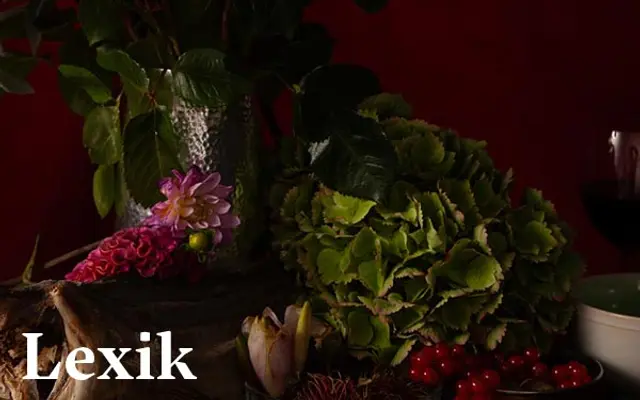
A wedge-serif text typeface with sharply cut, unbracketed terminals and generous round letterforms intended for both body text and headline use.
Lexik's defining characteristic is its wedge-shaped serifs and beaks, each constructed with a minimum of anchor points and no curvature, giving the face a precise, almost incised quality. Despite the sharpness of the terminals, the round letters are drawn generously, balancing austerity with readability at text sizes. Five weights from Light to Black cover Latin Extended, Cyrillic and Greek, with a comprehensive OpenType feature set including small caps, oldstyle figures and ligatures.
Lexik features sharp wedge-shaped serifs and beak terminals applied without curvature, placing it firmly in the wedge or incised serif category rather than conventional bracketed or slab forms.